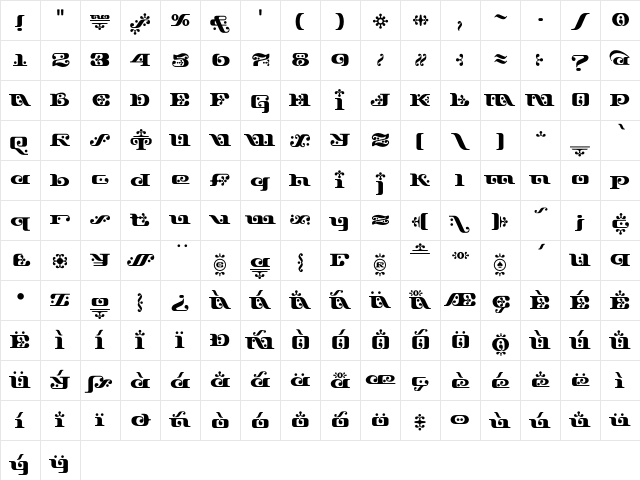
Django Bold Free Font
Django Bold
Design Context for Django
Django is a composed and adaptable typeface that performs quietly and consistently across a wide range of design contexts. Its bold stroke weight gives it real presence on the page.